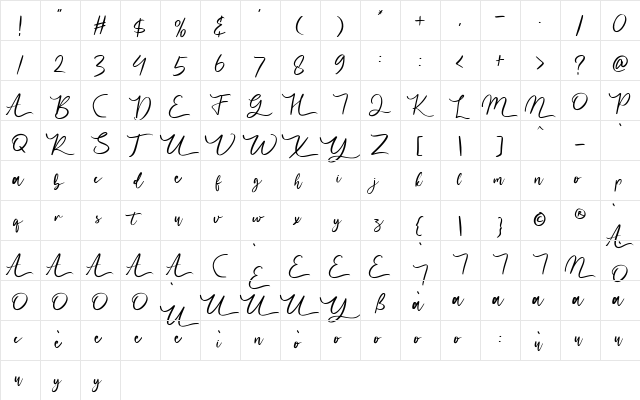
Aulores Regular
Design Context for Aulores Typeface
Aulores is a composed and adaptable typeface that performs quietly and consistently across a wide range of design contexts.